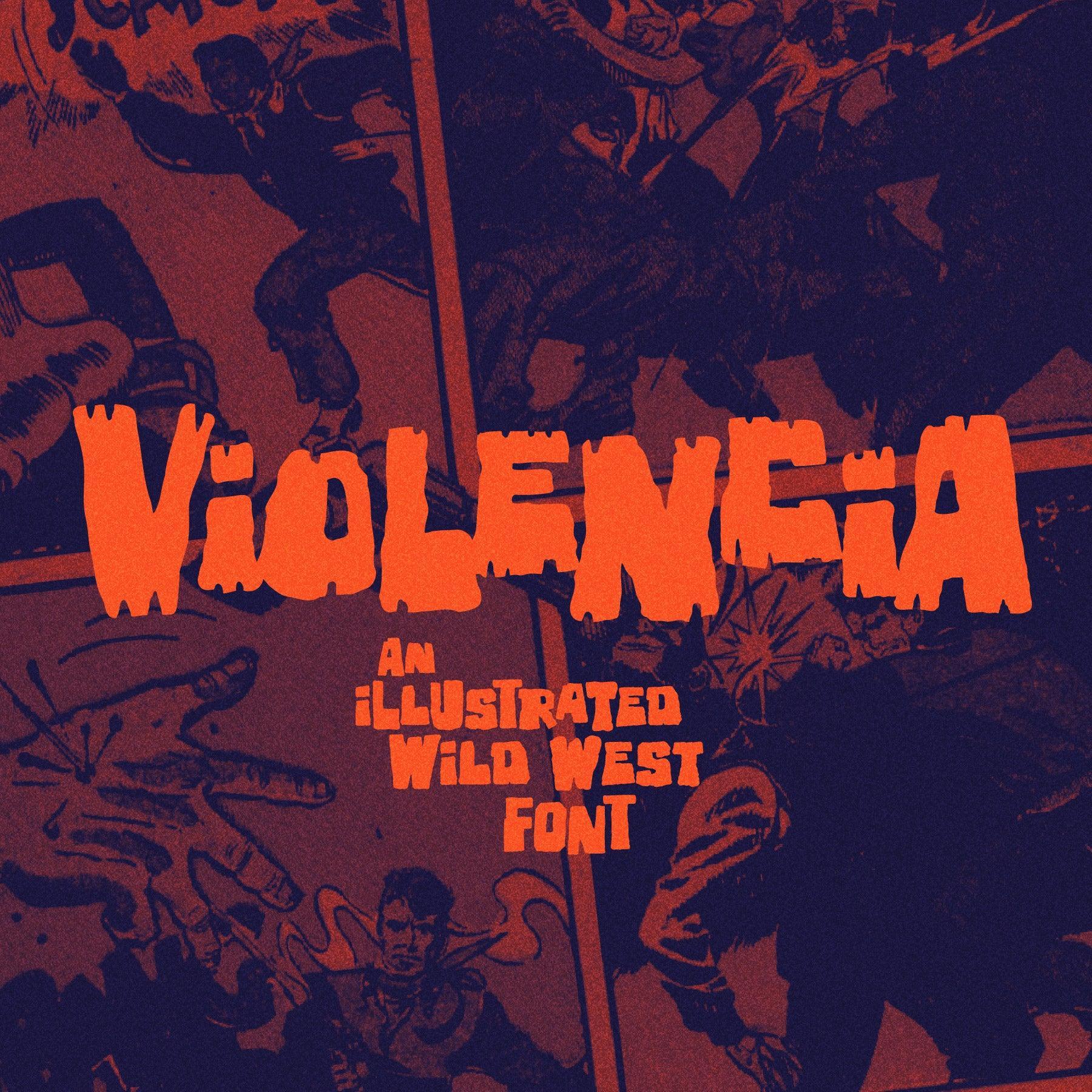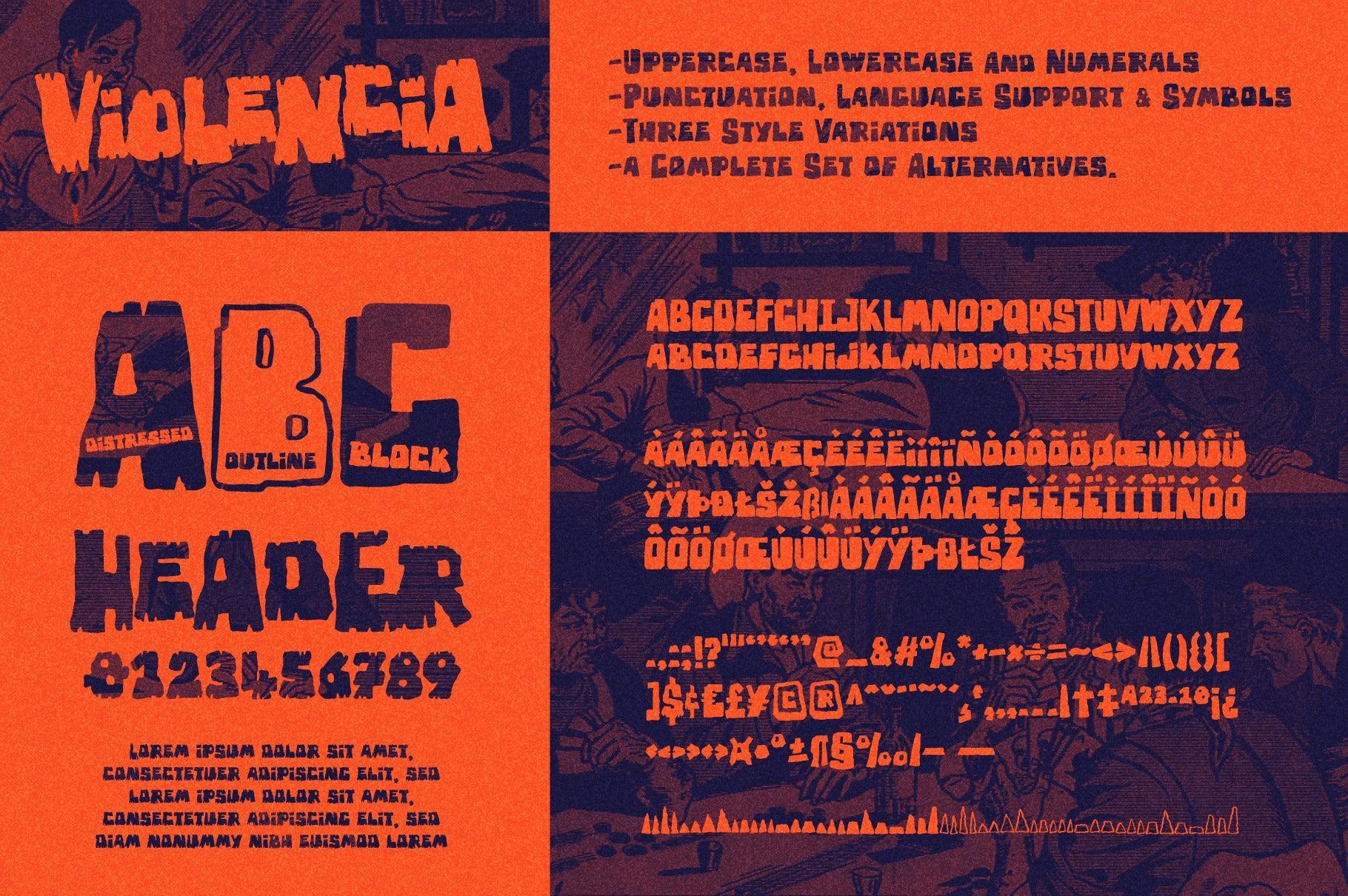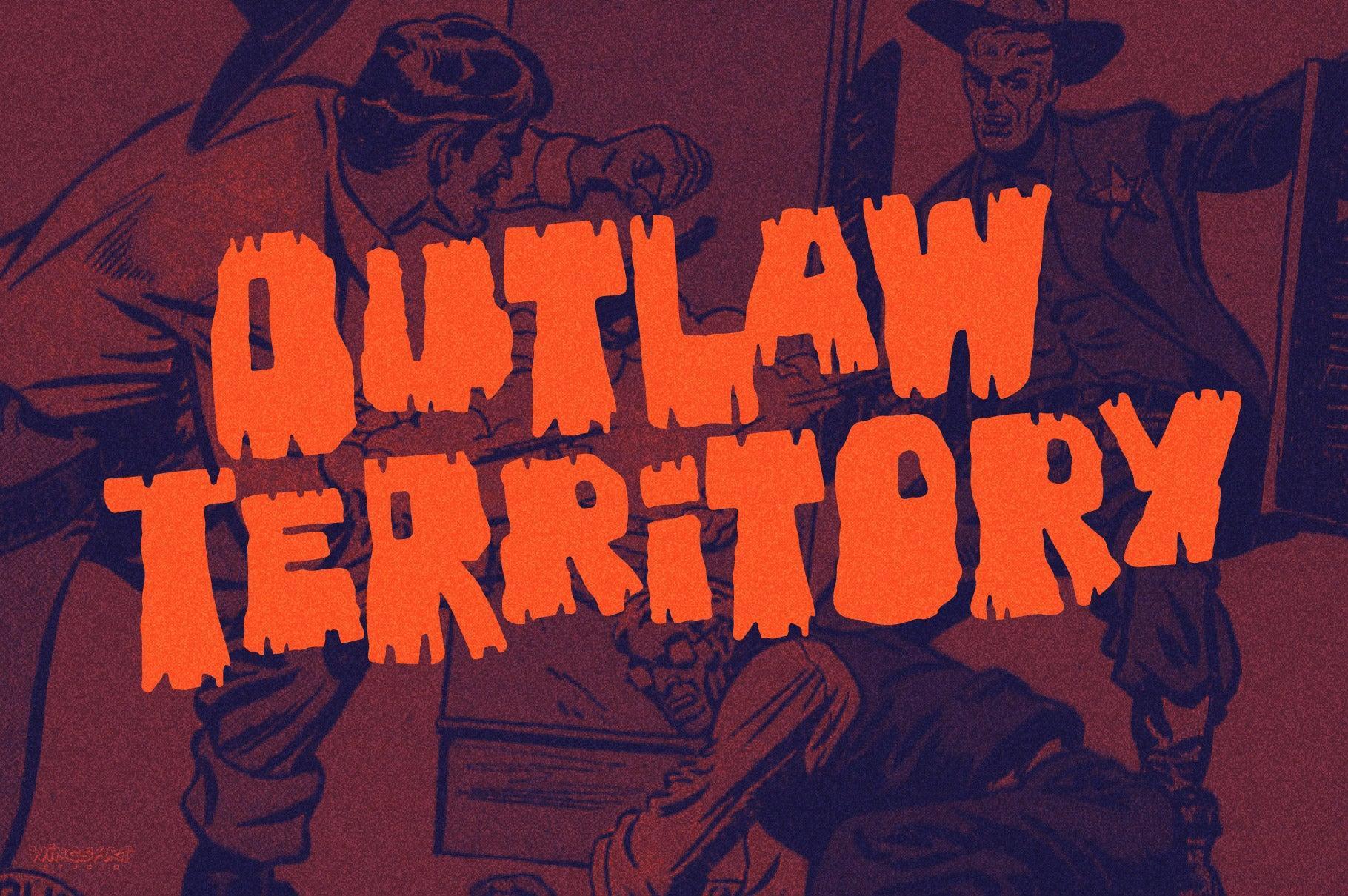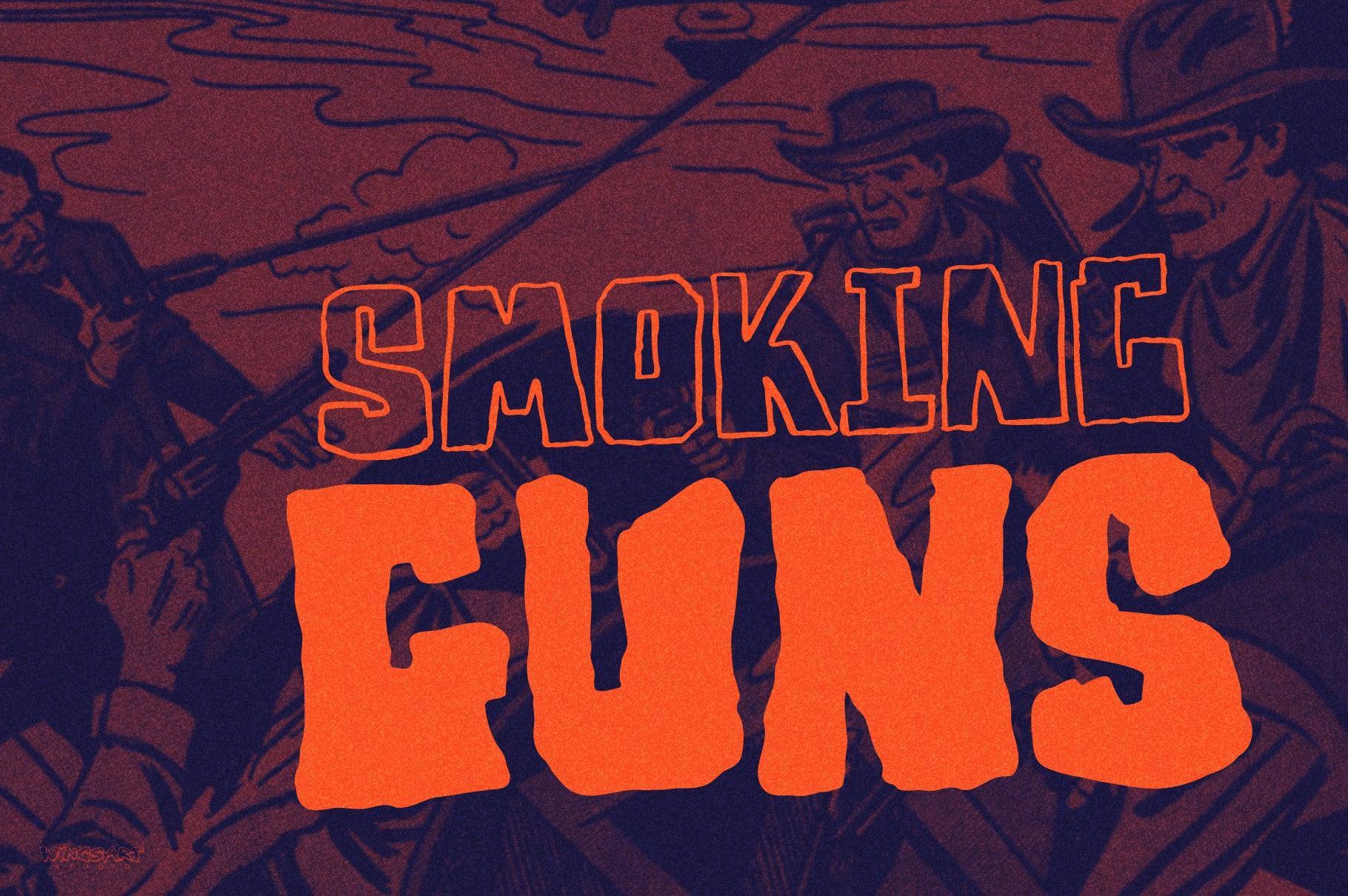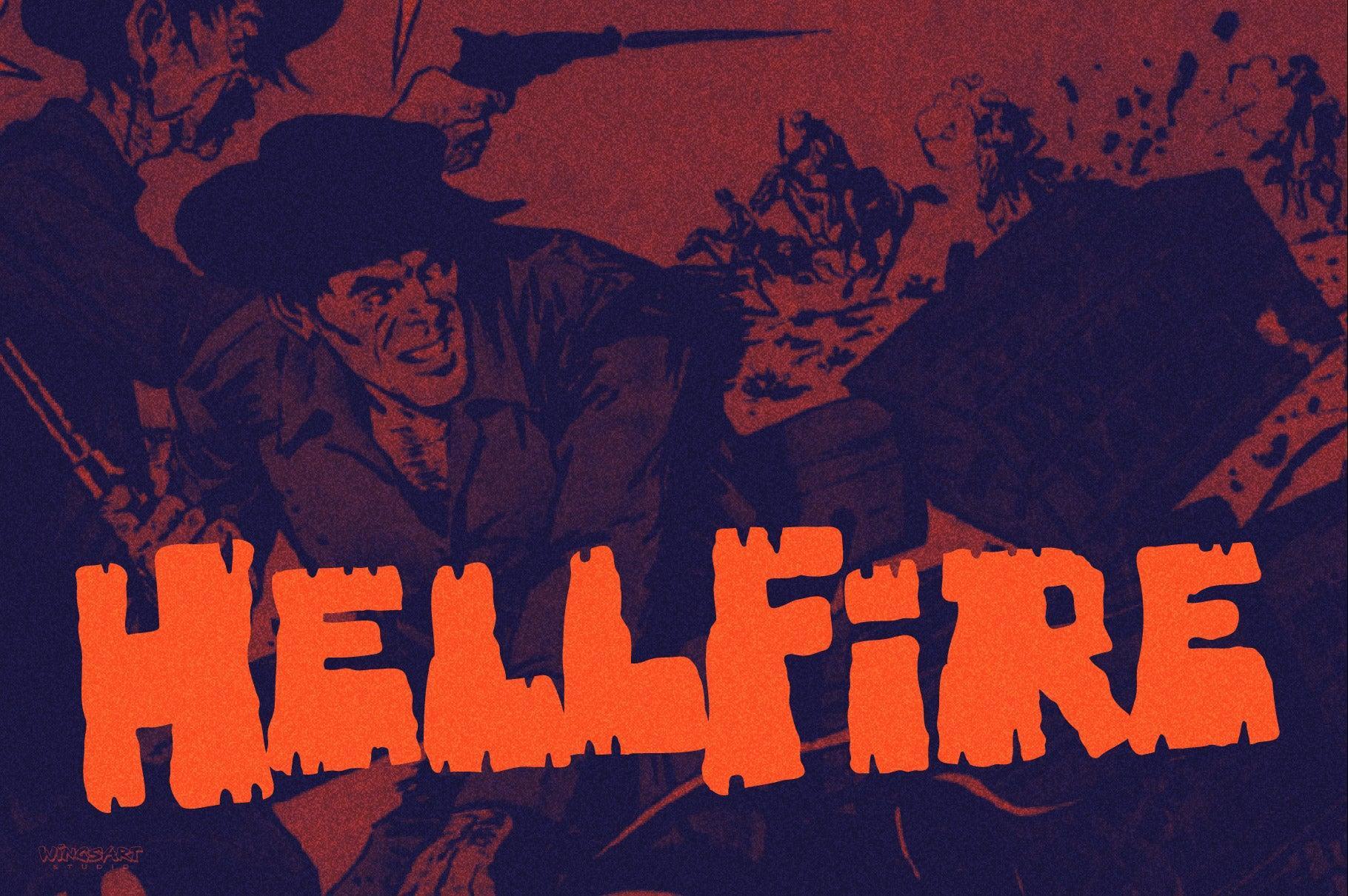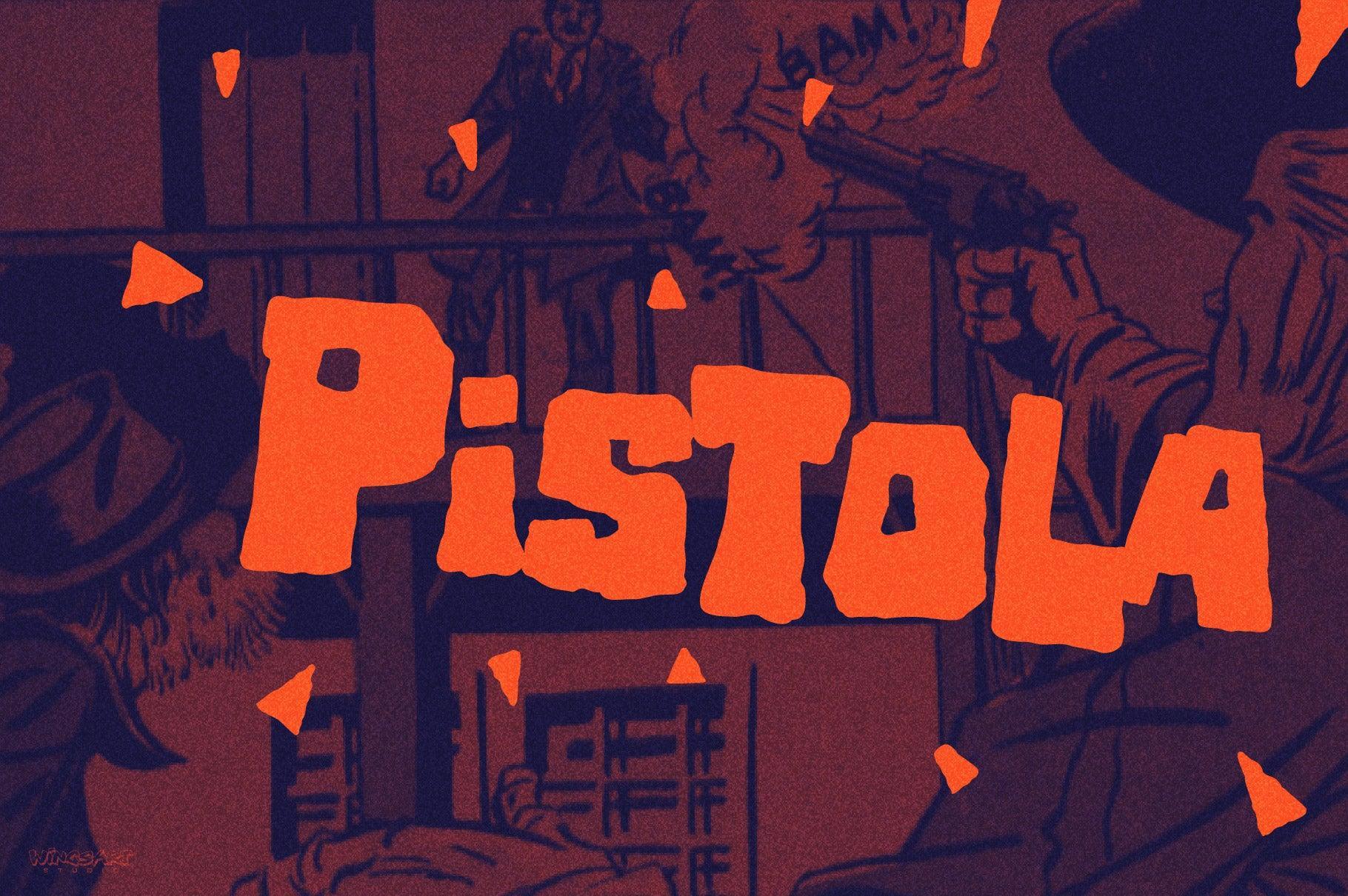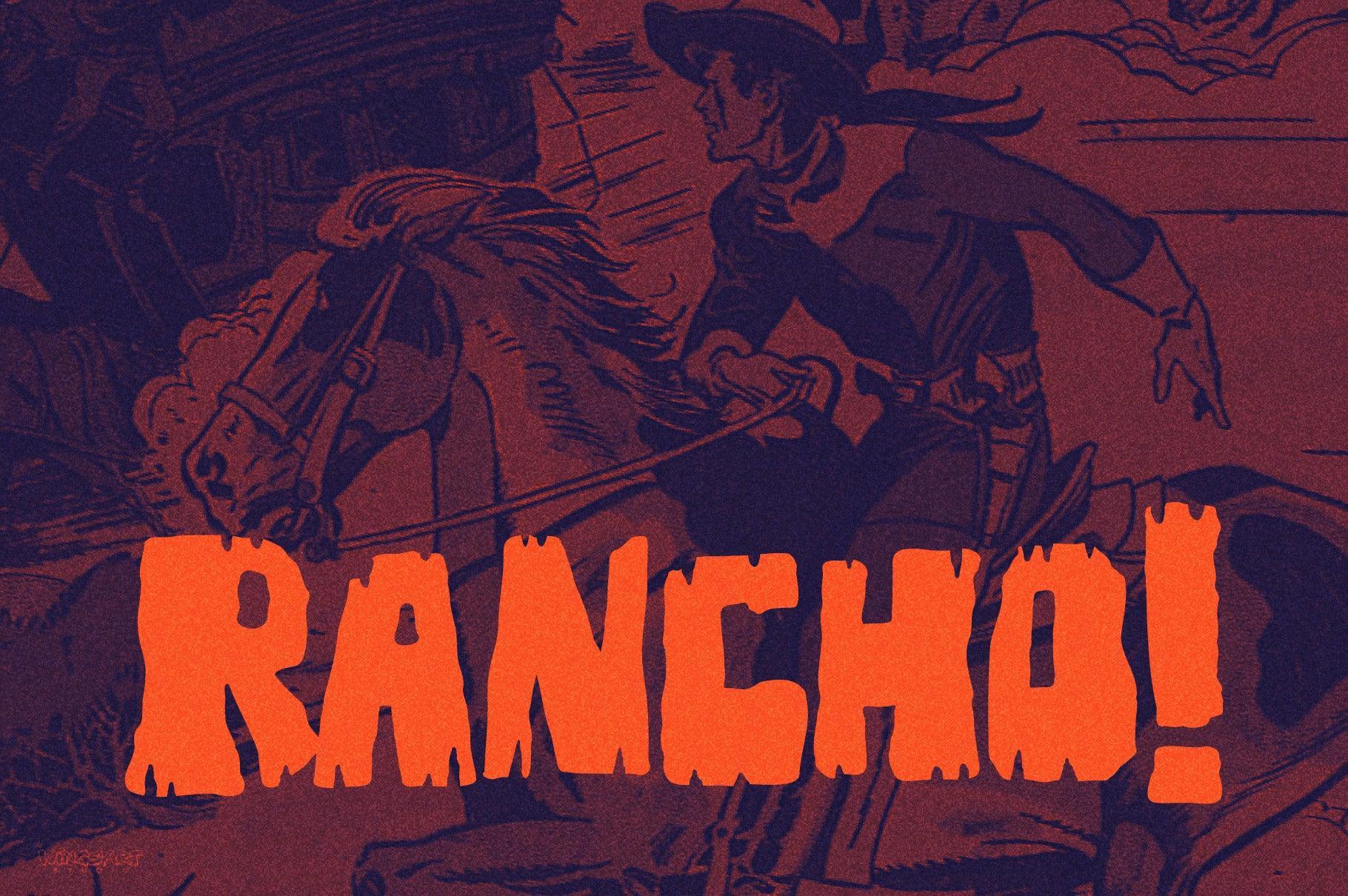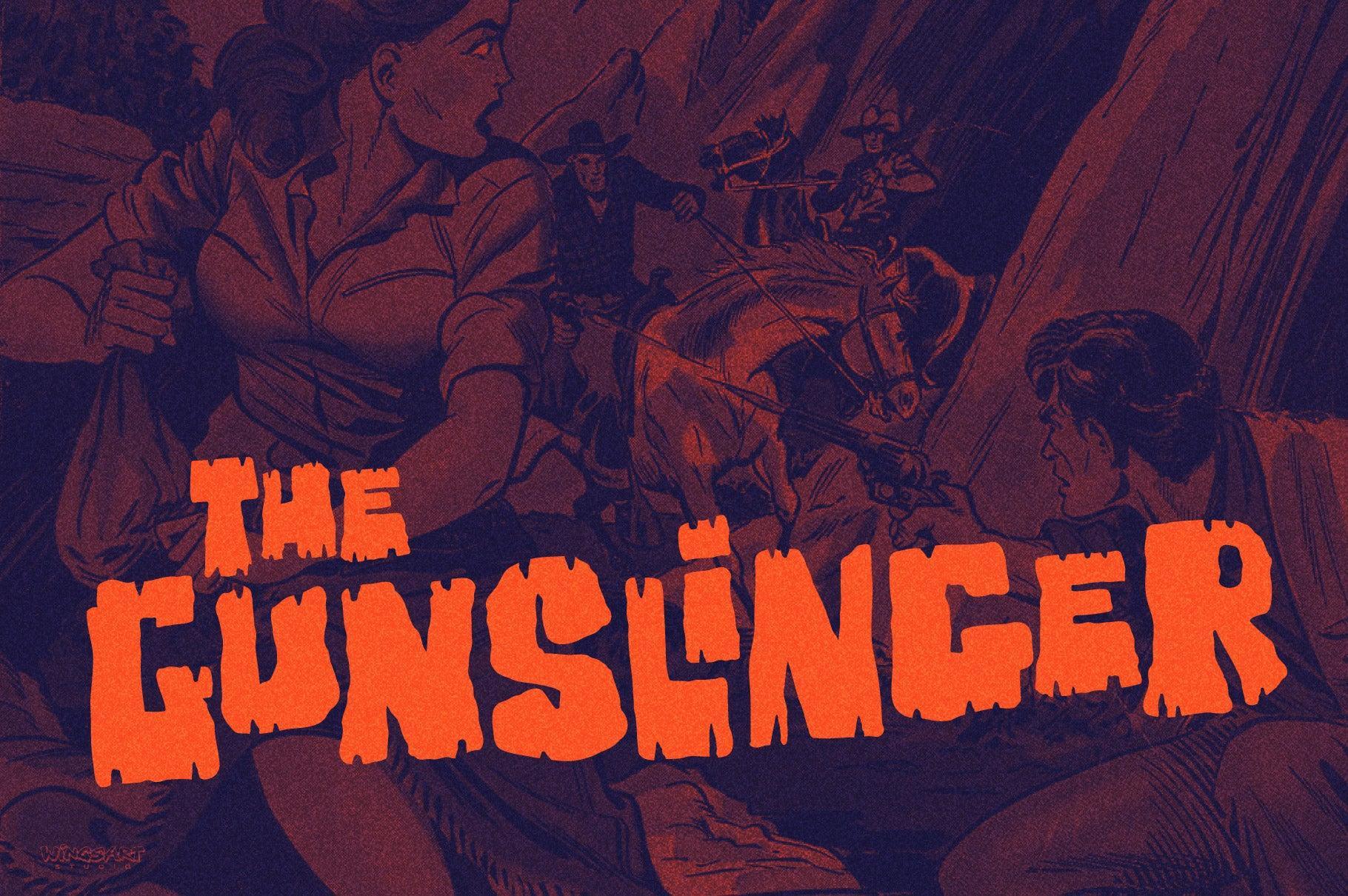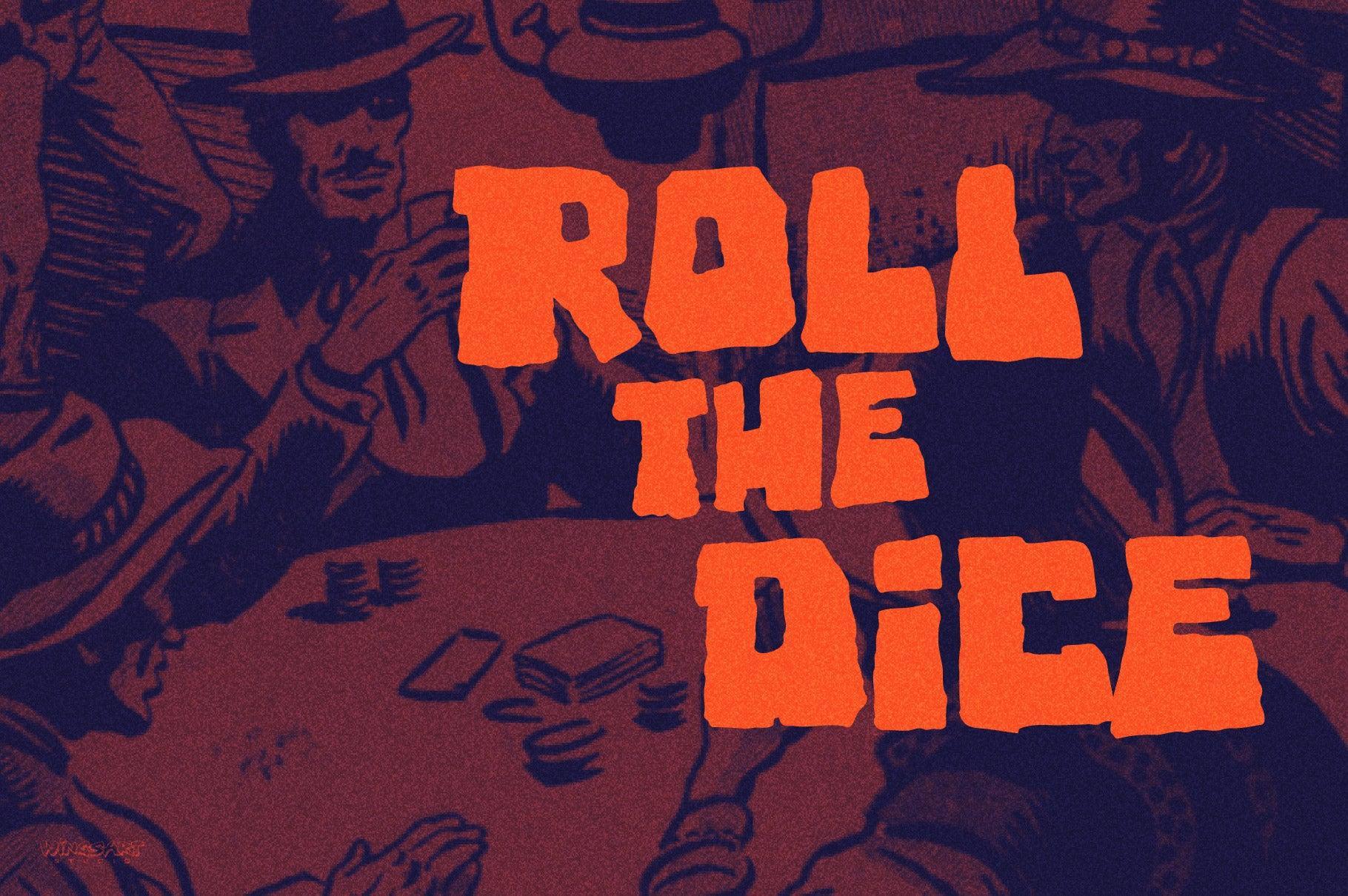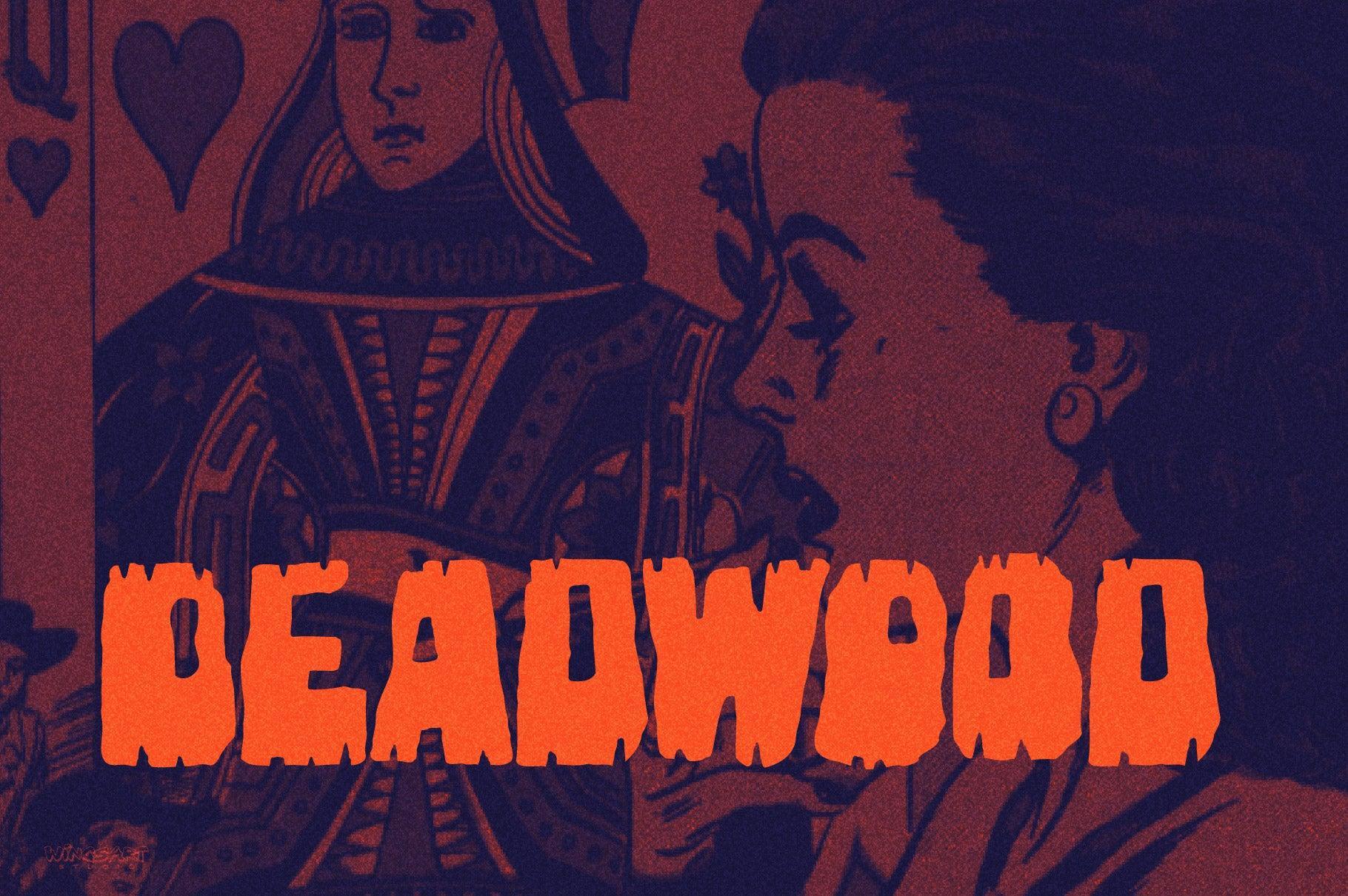
Violencia - An Illustrated Wild West Font
Violencia is a hand-drawn font inspired by the legendary age of the Wild West and its tales of gunfights, train robberies, and blood vendettas. It’s an all-caps design that evokes the textured style of vintage Western movie posters, comics, and novels.
The Violencia font family includes all-caps uppercase and lowercase characters, along with numerals, punctuation, symbols, and language support. It also comes with a complete set of alternative characters, all in the three unique styles of Distressed, Outline, and Block.
Mix the uppercase and lowercase characters and look for interesting shape combinations that might occur within the letters. Take advantage of all the alternatives too for a much more custom look that’ll be unique to your design.
Violencia is a hand-drawn, all-caps font inspired by the Wild West, featuring uppercase and lowercase characters, numerals, punctuation, and symbols. The font family includes three styles—Distressed, Outline, and Block—along with a complete set of alternative characters, available in OTF, TTF, and WOFF formats.
Ideal for vintage-inspired graphic design and Western-themed projects. Perfect for posters, branding, album covers, and book titles, ensuring an authentic and textured aesthetic that captures the essence of the Wild West.